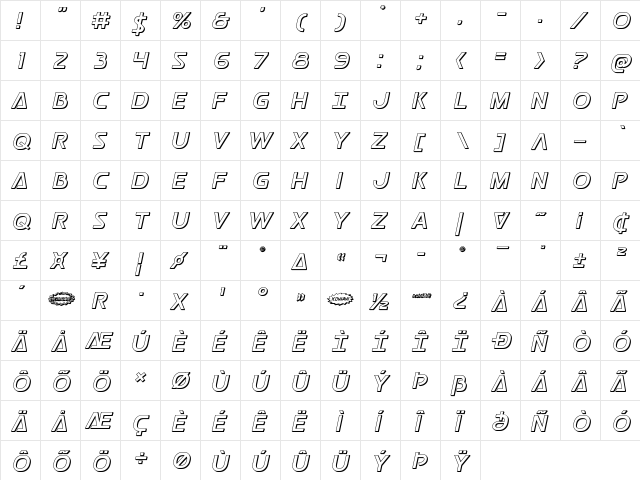
Postmaster 3D Regular
Design Context for Postmaster 3D Typeface
Postmaster 3D is a composed and adaptable typeface that performs quietly and consistently across a wide range of design contexts.